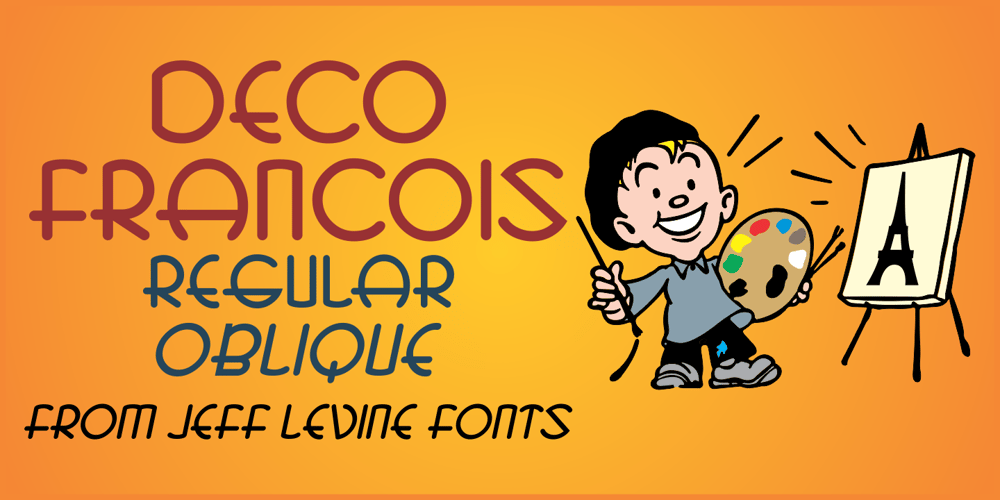
Deco Francois JNL Font Family was designed by Jeff Levine and published by Jeff Levine. Deco Francois JNL contains 2 styles and family package options. The 1930s-era French alphabet collection entitled “La Lettre Dans le Decor & La Publicite Modernes” (which somewhat translates to “The Letter in Modern Decor and Advertising”) has page after page of attractive and unusual type interpretations.One particular Art Deco design puts an entirely different spin on the classic “rounded terminals and geometric design”. Unusual character shapes add a fresh new/old take to the “Streamline Movement”.The aptly-named Deco Francois JNL is available in both regular and oblique versions.